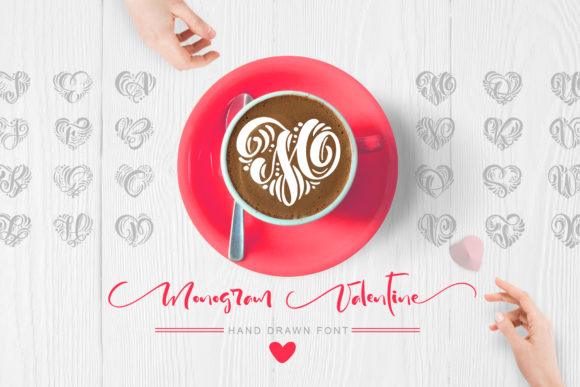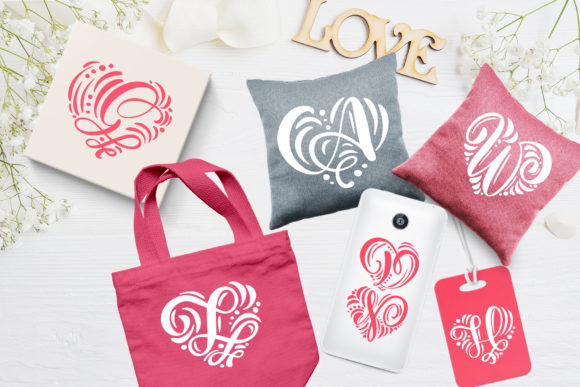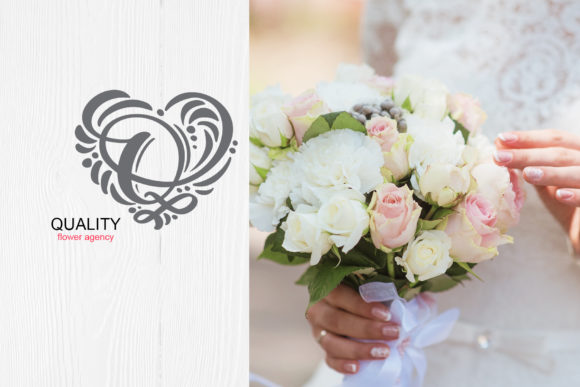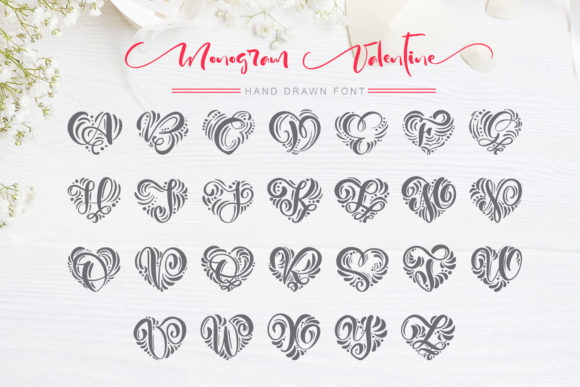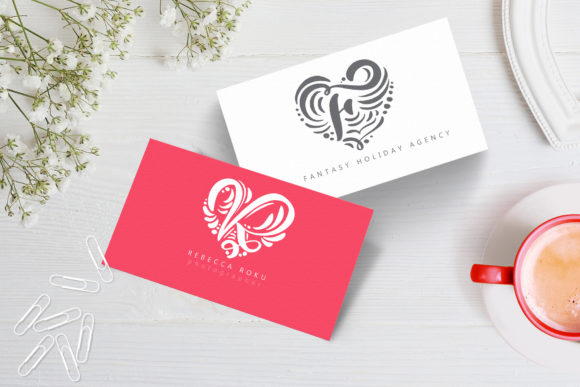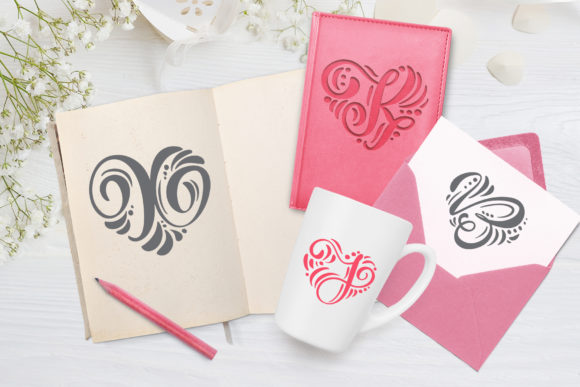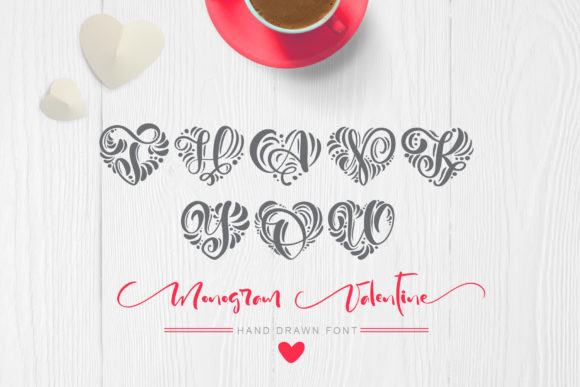
Monogram Valentine Font
Monogram Valentine is a unique font with each letter created with heart-shaped style. It will add a romantic touch to any crafting project!